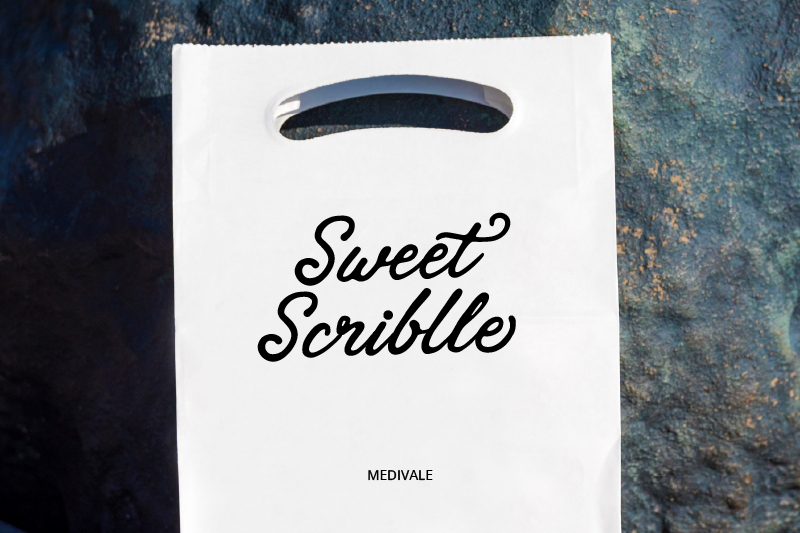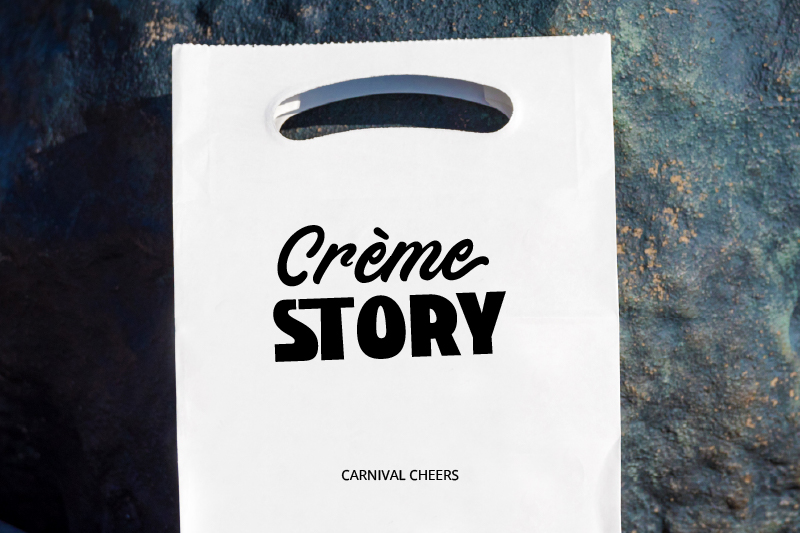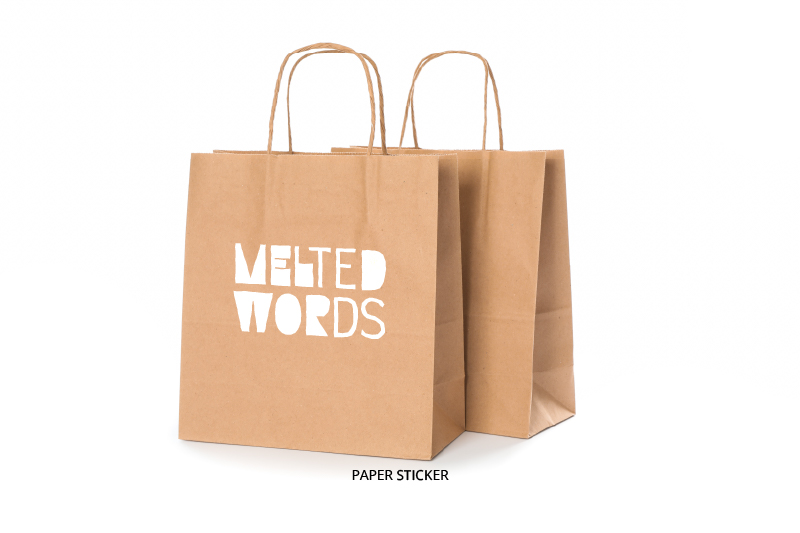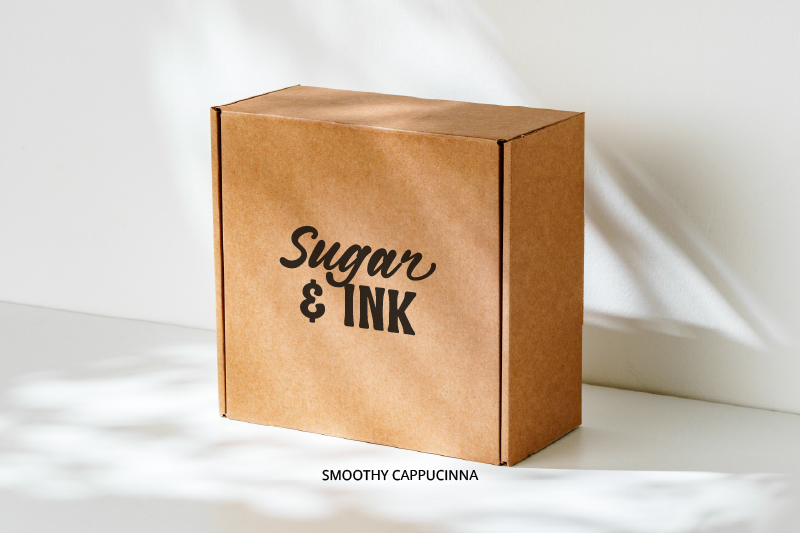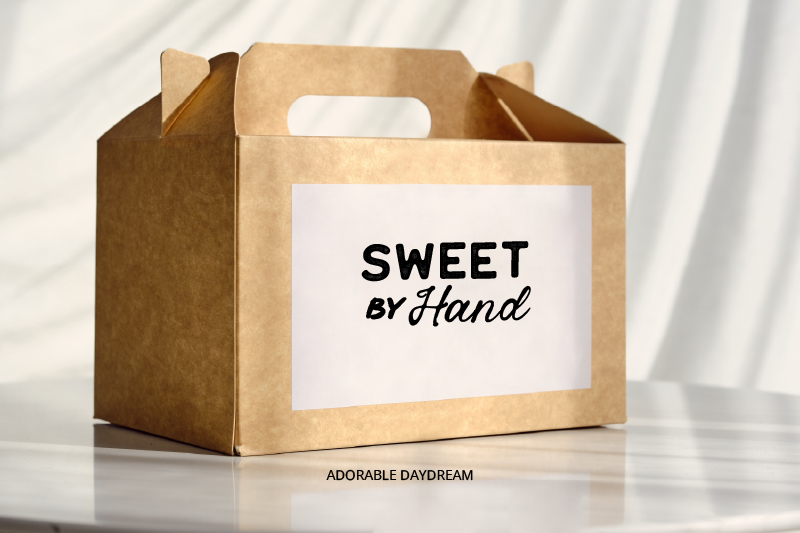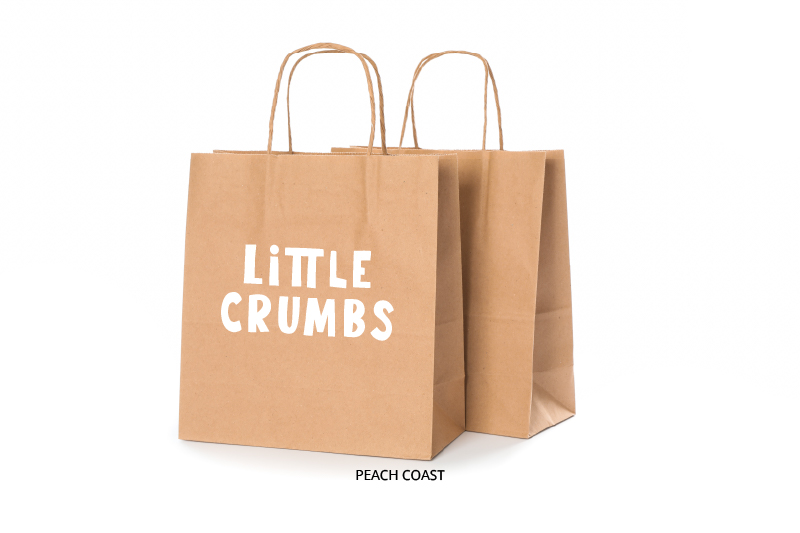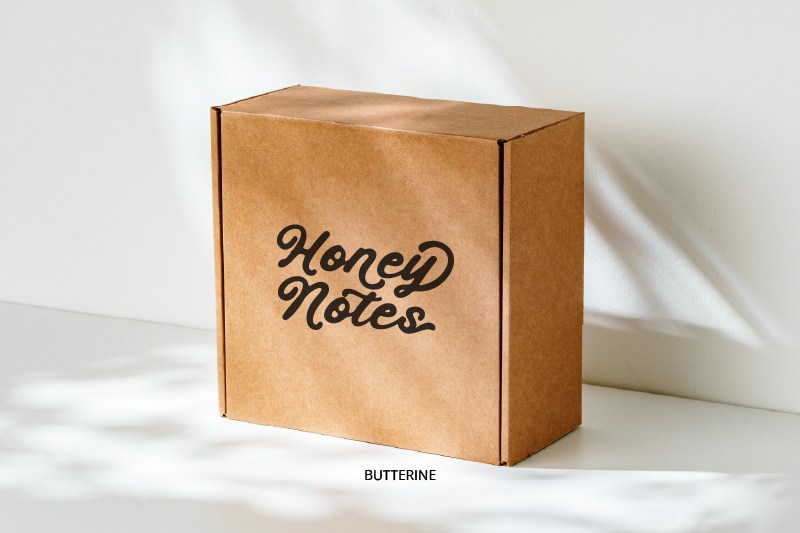
Have you ever imagined freshly made, delicious-looking cakes and creamy ice cream right in front of you when you wake up? It looks incredibly tasty and yummy, doesn’t it? Well, that is the power of visuals in dessert branding. Sweet and appetizing looks are what make customers interested in dessert even before tasting them. From cake packaging and bakery logos to cookie labels and ice cream promotion on social media, it all depends on using the right fonts for dessert branding.
Here is where handwritten fonts play a crucial role. Unlike script fonts that are generally designed with connected strokes for formal branding, handwritten fonts have a more casual, playful, block character style. This type of font offers a handmade, warm, and personal impression, in line with the character of the dessert itself. Therefore, this article will explore the most stunning handwritten fonts for dessert branding that are perfect to enhance your food branding, making them sweeter, friendlier, and more memorable.
Before we see the font recommendations, it is important to know why handwritten styles are the best fonts for dessert branding. This type of font acts not only as a mere element but also as a visual that builds the character and story behind each type of dessert, making them feel closer and more relatable to the customers.
There are some main reasons why the use of handwritten fonts for dessert branding is ideal:
Besides, handwritten fonts are incredibly flexible, depending on the style, thickness, and shape. These fonts look adorable and playful for cookies or birthday cakes and cozy for warm, elegant, and premium desserts. The fonts you use will create the most suitable visual character for your product, making your friend look livelier and memorable for the customers.
The first on the list is Medivale. It is a distinct handwritten font with a smooth and expressive script style. Each letter flows naturally, resembling genuine handwriting. Its connecting curves feel smooth and consistent. In addition, this font has a balanced line thickness that maintains readability without losing its artistic value.
With a casual look and irregular letterforms, this font exudes a warm, friendly, and personal impression. Medivale is one of the best fonts for dessert branding, such as sweet food packaging, dessert promotional posters, bakery menus, and cake branding logos that wish to look humane and emotional.
With a soft and relaxed letterform, Peach Coat is an all-caps display font that feels playful and friendly. This font is ideal for bakery logos, cupcake shops, dessert-themed Instagram posts, and more. Each letter of this font is designed with a bold, simple, yet messy character, evoking a warm and fun feeling.
The next font in this list of top fonts for dessert branding is Butterine. It is a handwritten font full of elegant, handcrafted touches. The curves of each letter flow naturally, offering a sweet and nostalgic sense at the same time.
This font feels personal, friendly, and full of character. Butterine is suitable for brands that want to appear authentic without losing a premium touch. This font is ideal for packaging design, logos, and dessert menus with a modern touch that remains warm and elegant.
Coming with an all-caps handwritten style, Chunks Notes is a bold and expressive font that presents a relaxed, warm, and authentic impression. The letterforms resemble genuine handwriting, creating a sense of personal and handmade feel that easily attracts attention.
Additionally, the font concept keeps the text clear and visually strong, making it suitable for dessert branding, bakeries, artisan product logos, packaging, labels, and even social media content.
As sweet as its name, Amotery Deluna is a font duo that combines a smooth handwritten script font with a bold, modern, and capitalized sans-serif one. The script style presents naturally connected strokes, evoking a warm, personal, and appealing feel that is ideal for brands’ names, premium dessert labels, and elegant cake packaging.
Meanwhile, the sans-serif style gives clean and confident contrast, perfect for logos and headlines. The combination creates a balanced, elegant retro look, making it flexible and memorable. Amotery Deluna is definitely one of the most perfect fonts for dessert branding.
Billy Muffin, both the name and the look of this font are “delicious” and “soft.” It shows a letter character that looks rounded, bold, and playful. Additionally, the letterforms appear fluffy and friendly, and with its varied stroke thickness, this font creates a smooth visual rhythm that feels alive and expressive.
This font works perfectly for logos and dessert packaging like bakery bags, dessert boxes, and homemade brands. Billy Muffin will make the product look more “tasty,” friendly, and memorable.
Standing Stars is a font duo that combines handwritten script and sans-serif style that creates a sweet, creative, and charming look for dessert branding. The script style presents a naturally connected handwriting that is warm and expressive, ideal for brands’ names, cake packaging, and premium cake labels.
To make your dessert brands look “tasty” before serving, choose the most appealing font for your branding. In the world of dessert, a visual appearance that looks sweet will, of course, be the first impression that attracts the eyes.
Handwritten fonts can strengthen the product character and give a distinctive identity. With the right visual approach, your brand will feel livelier, more personal and, of course, have a consistent appeal.